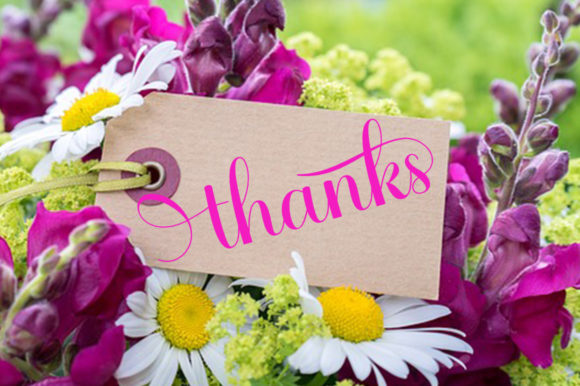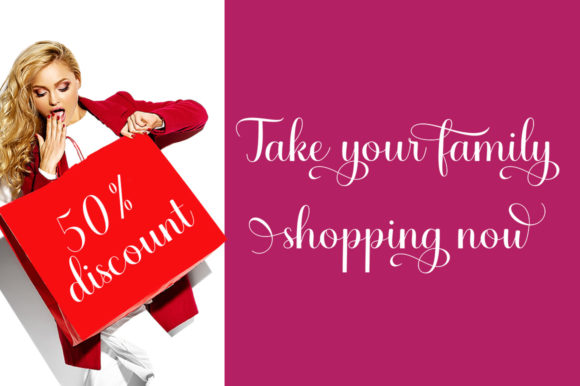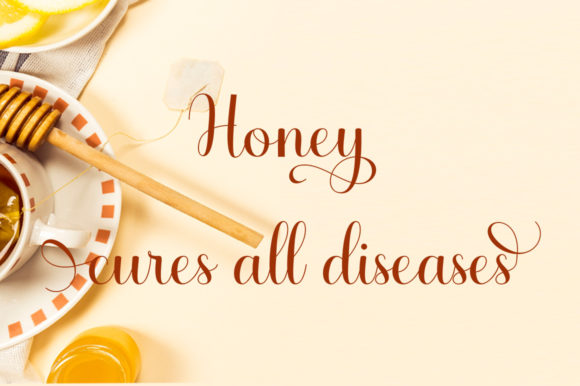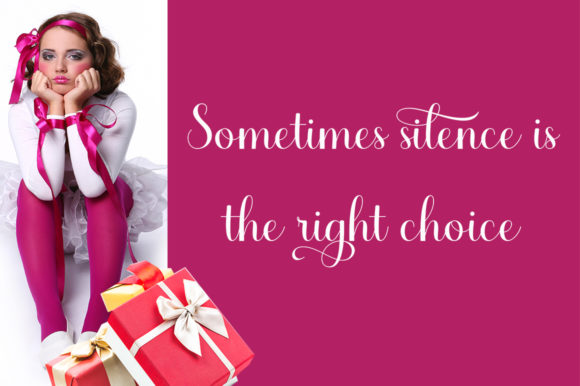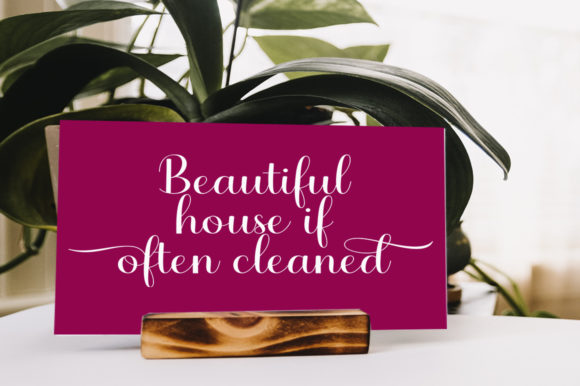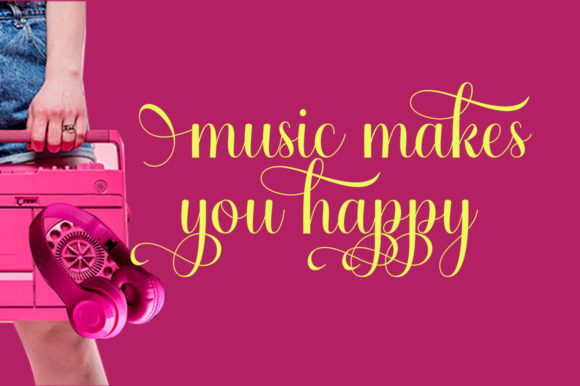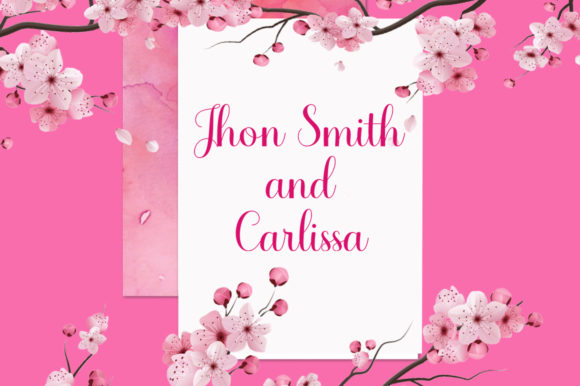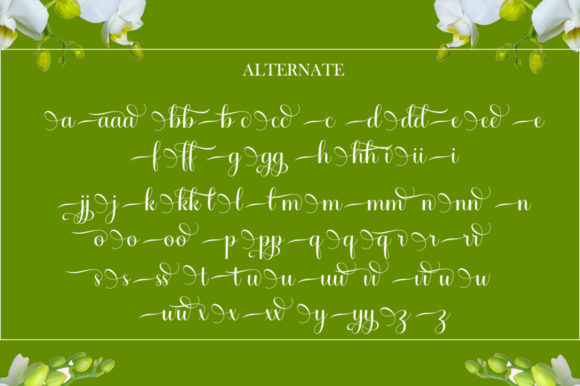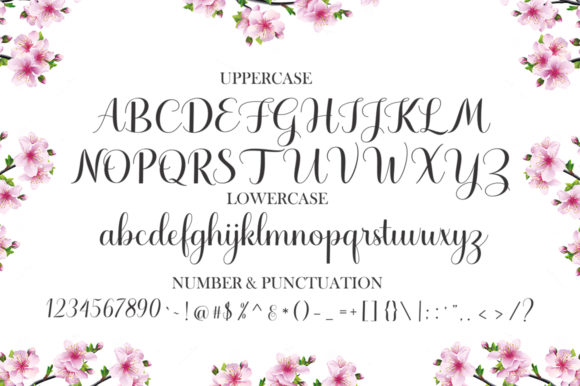
Haydena Font
About Haydena Font
Haydena feels sophisticated and modern. This enchanting script font is a stylish homage to classic calligraphy. Fall in love with its authentic feel and use it to create gorgeous wedding invitations, beautiful stationary art, eye-catching social media posts, and cute greeting cards. This font is PUA encoded which means you can access all of the cute glyphs and swashes with ease! It also features a wealth of special features including alternate glyphs and ligatures.